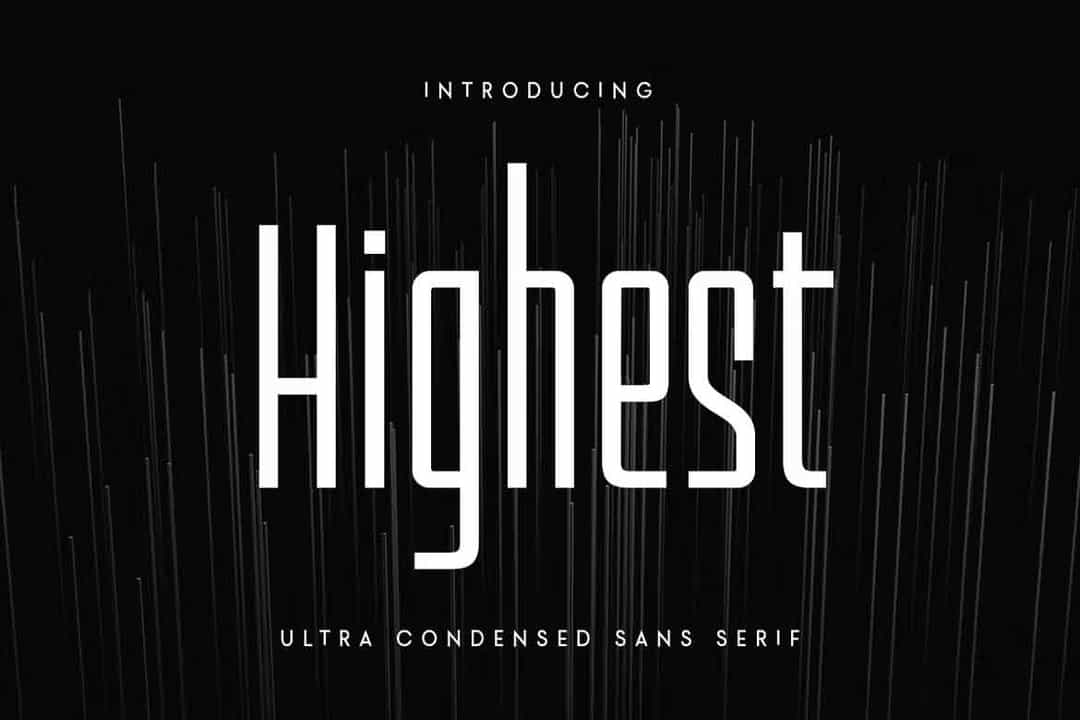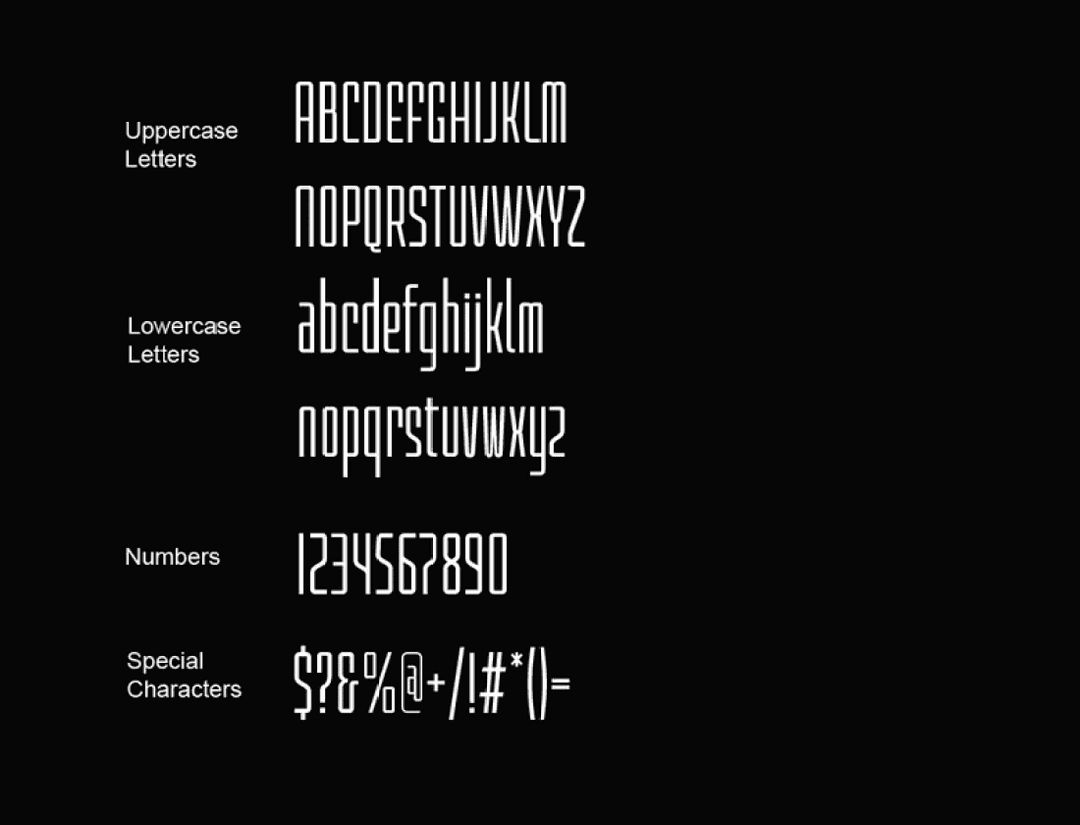
Highest a brand new Ultra-Condensed Sans Serif font has been designed specifically to meet heading, title and typography requirements – it is great for adding your own style or headline outline!